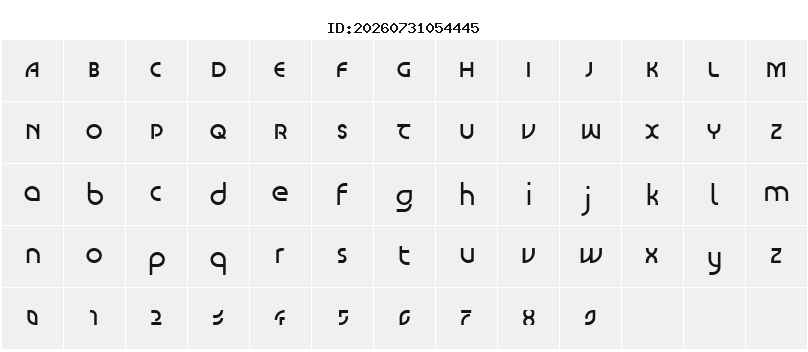
LTScott Venus Preview
• Font Name: LTScott Venus
• Full Font Name: Linotype Scott Venus
• Designer: Hellmut Bomm
About LTScott Venus.ttf
LTScott Venus.ttf is a modern, elegant sans-serif font designed for ultimate readability and visual harmony. Perfect for branding, headlines, web design, and print materials.